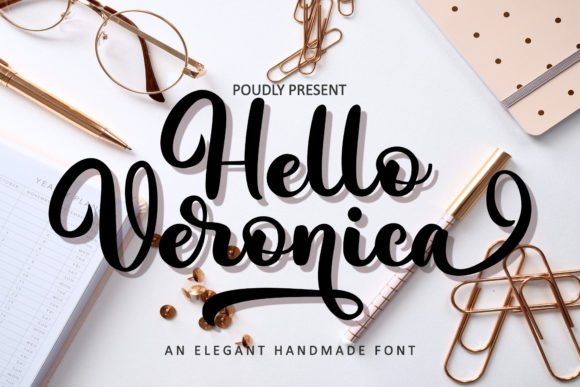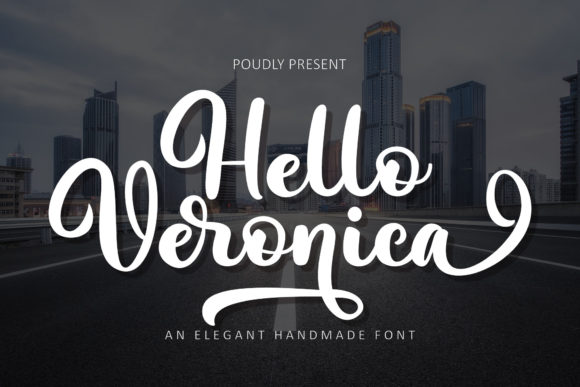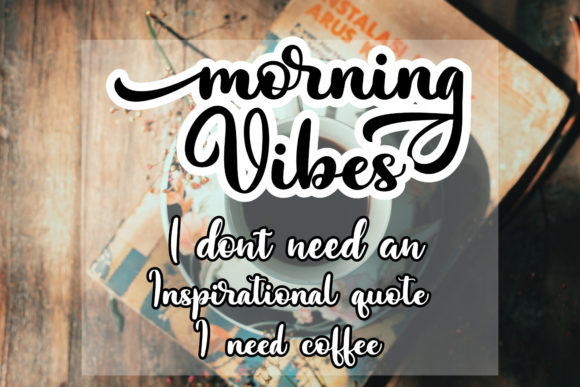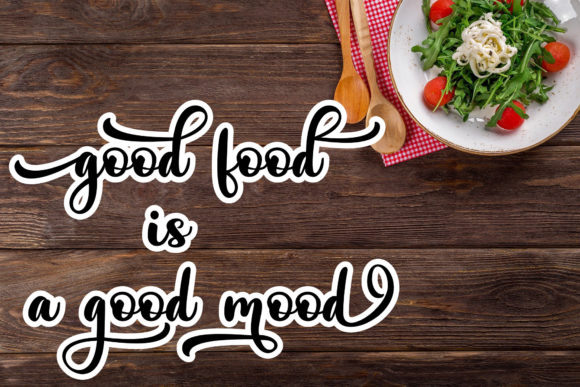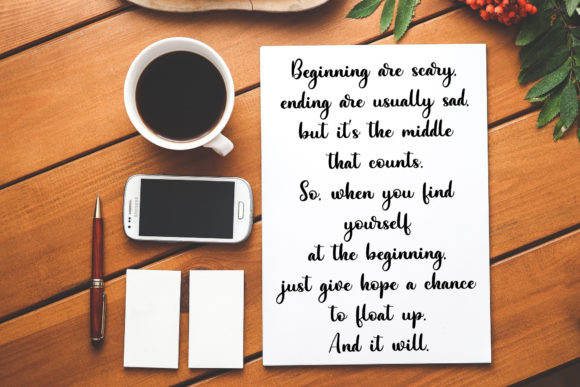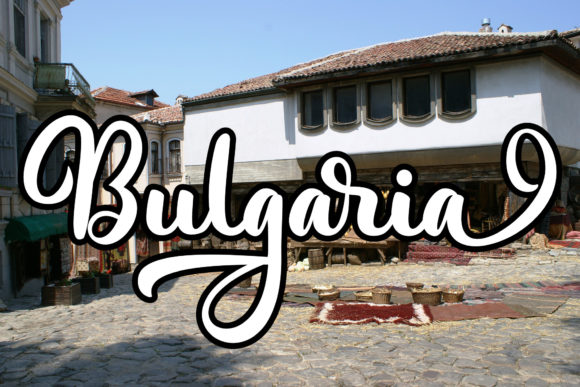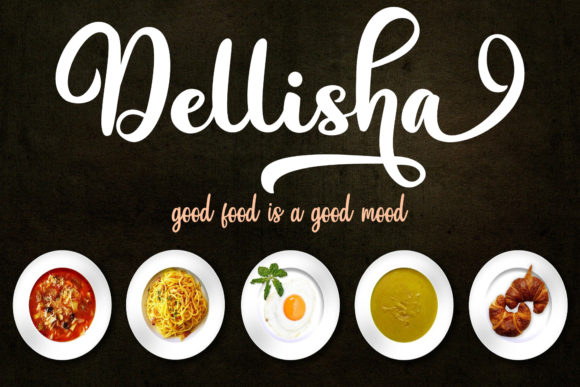
The Perfect Combination of Elegance and Contemporary Style
There’s something magical about the moment when a design comes together – the perfect balance of colors, shapes, and typography. For designers, this moment is often the culmination of hours of creativity and experimentation. But what if you could elevate your designs with a single, elegant font that captures the essence of timeless calligraphy? Enter the Hello Veronica Font, a beautiful script font that brings a touch of sophistication to any project.
This stunning font is designed to evoke a sense of classic charm, while still feeling modern and contemporary. With its impeccable form and PUA encoding, the Hello Veronica Font makes it easy to access all of its beautiful glyphs and swashes, allowing you to create truly unique and eye-catching designs. Whether you’re working on a logo, a wedding invitation, or a brand identity, the Hello Veronica Font is a valuable addition to any designer’s toolkit.
- Unique Characteristics: The font features a unique blend of modern and vintage elements, with clean lines, rounded edges, and subtle texture, making it ideal for creative and design-intensive projects.
Hello Veronica Font Review
As a designer, I was excited to dive into the Hello Veronica Font, a script font with a unique and elegant feel. ✨ One of the things that stands out about this font is its versatility – it works beautifully for both digital and print applications. The flowing connections between letters create a sense of movement and fluidity, making it perfect for headings and titles. ✨ The font also has a range of styles, from casual to formal, which makes it easy to adapt to different design needs.
- ✨ Beautifully crafted connections between letters
- ✨ Versatile and suitable for both digital and print applications
- ✨ Wide range of styles to suit different design needs
However, I do have a few concerns about the font’s limitations. ⚠️ While the font is well-suited for headings and titles, it can be a bit challenging to read in smaller text sizes. Additionally, the font’s unique connections between letters can sometimes make it difficult to pair with other fonts. ⚠️ Finally, the font’s range of styles, while useful, can also make it feel a bit inconsistent at times.
Overall, I think the Hello Veronica Font is a great choice for designers looking to add a touch of elegance and sophistication to their designs. With a little bit of careful planning and consideration, it can be a real showstopper. However, it’s not without its limitations, and designers should be aware of these before using it in their projects.
Use Hello Veronica for titles, headings, and body text to add a touch of elegance and sophistication to your designs.
Combine the font with other stylish fonts to create a unique and eye-catching typography style.
Experiment with different font sizes and styles to create visual hierarchy and emphasize important information.